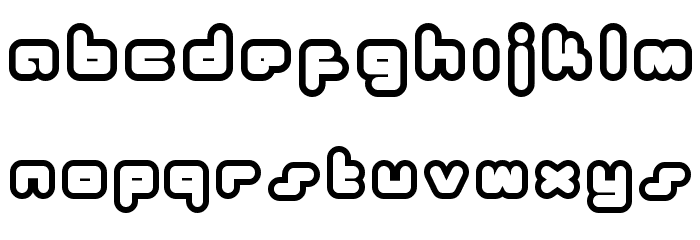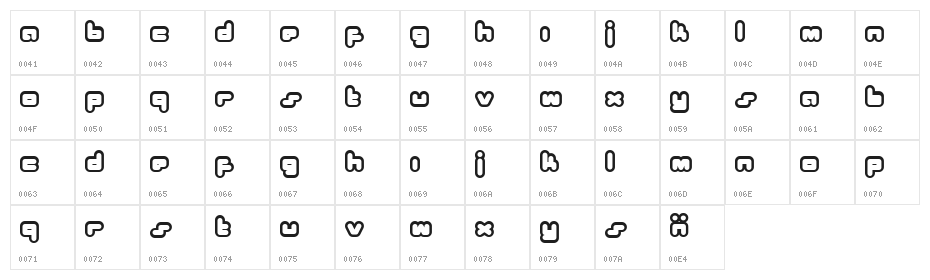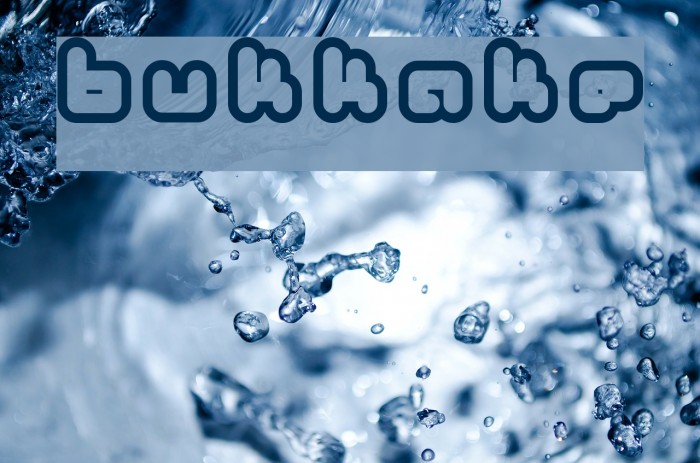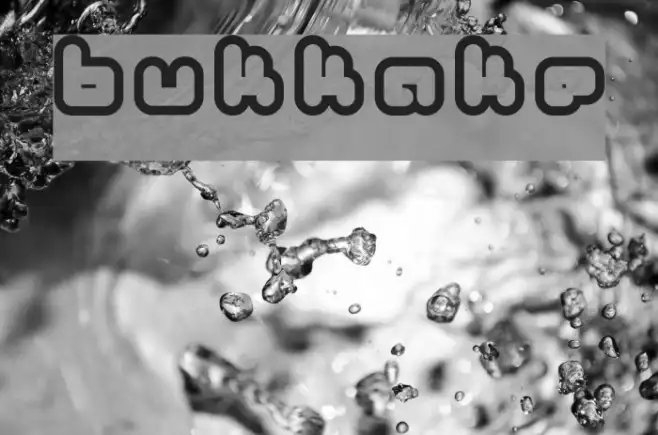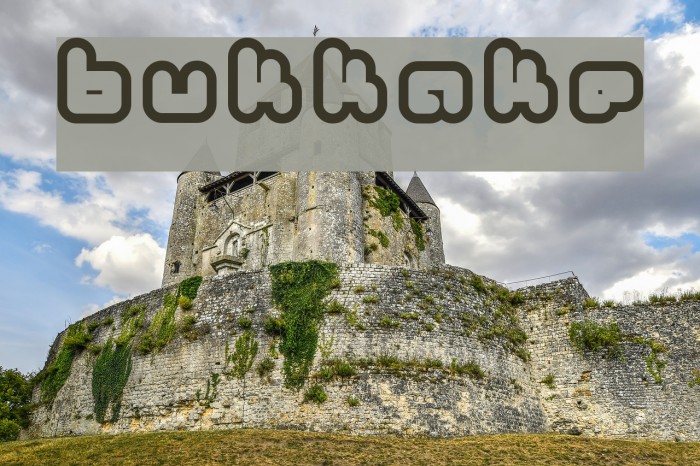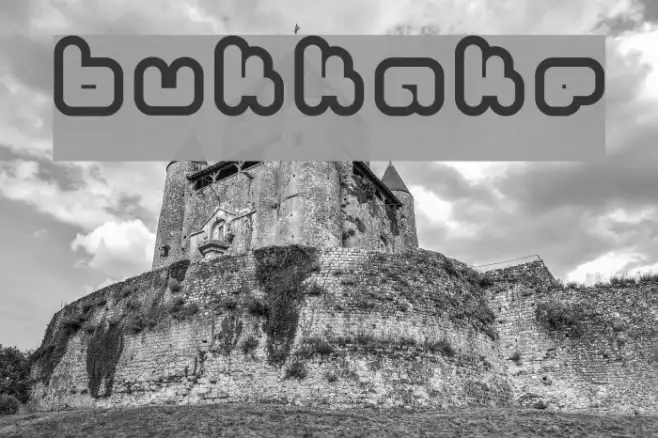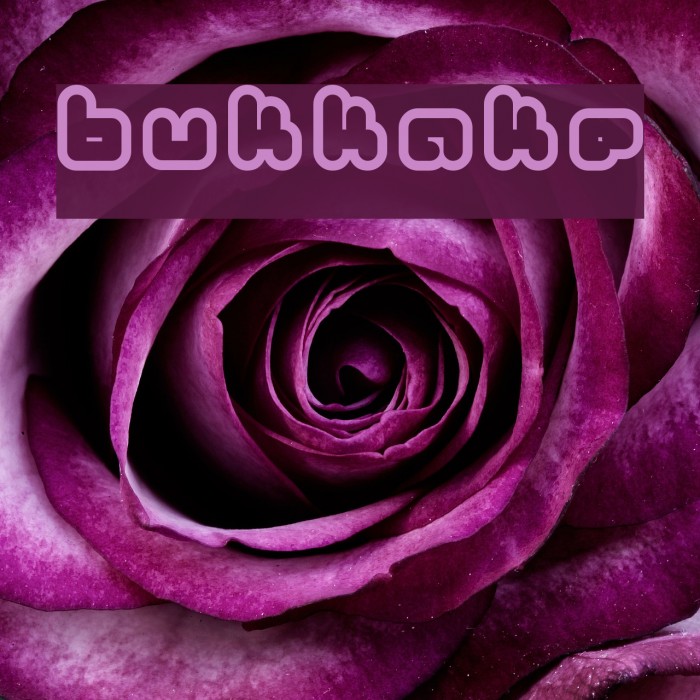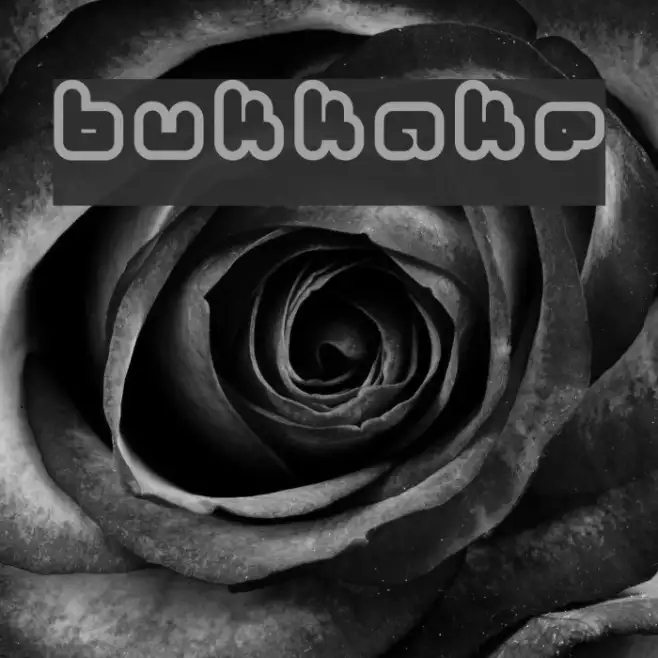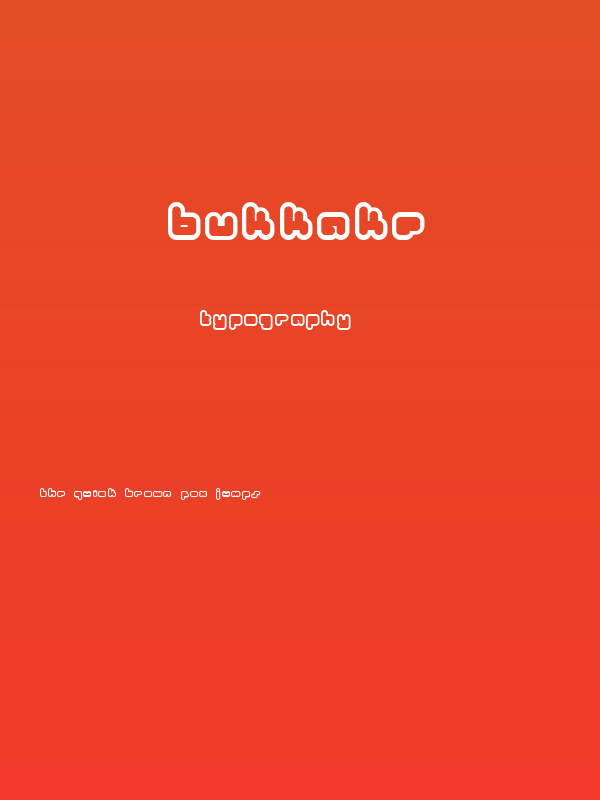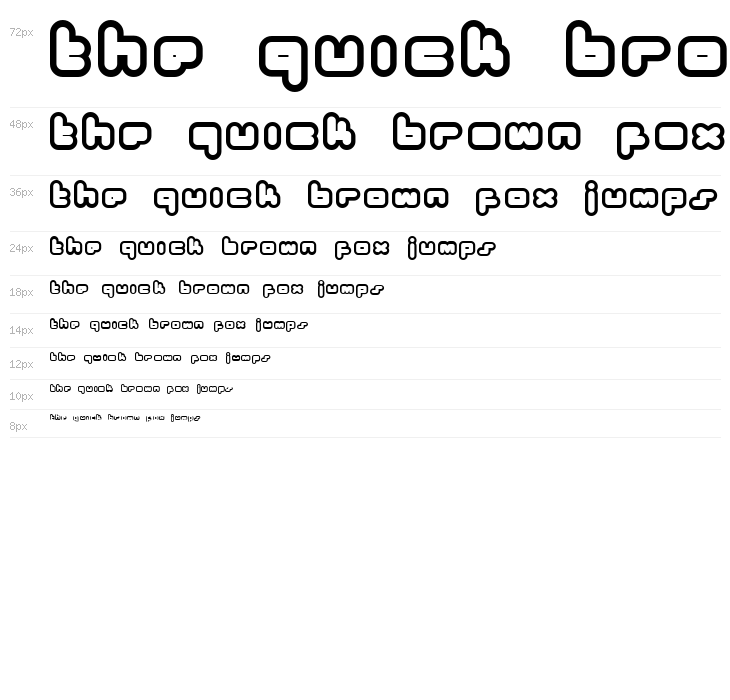
Bukkake Font
Bukkake Description
A rounded, bubble-like sans-serif font with thick outlines and uniform stroke width. The characters are geometric and playful, featuring soft corners and consistent proportions. The style is highly legible and visually engaging, with a modern, cartoonish appearance.
| Overall Style | Decorative, Modern, Playful |
| Use Case | Logos, Headlines, Posters, Children's materials |
| Proposed Projects | Children's books, playful branding, posters, games, toy packaging, event flyers. |